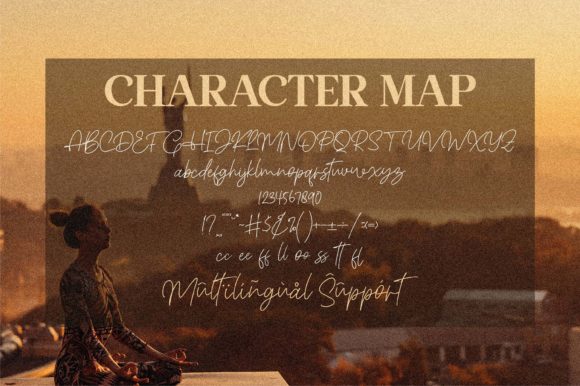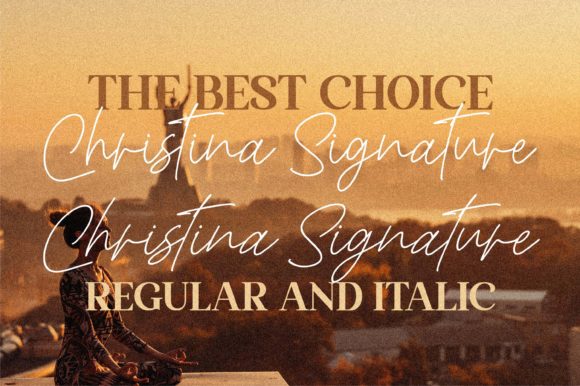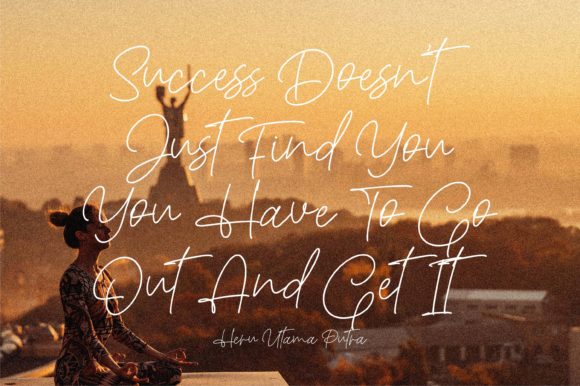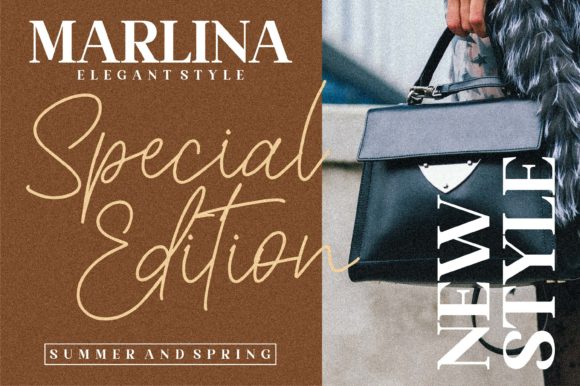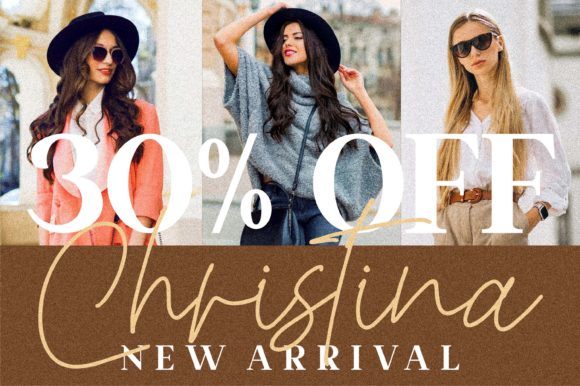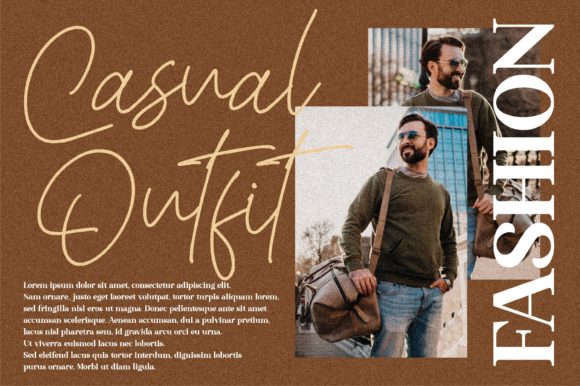
Discover the Elegance of Christina Font: Elevate Your Designs with a Touch of Sophistication
Are you on the hunt for a font that exudes elegance, sophistication, and a dash of modern flair? Look no further than Christina Font, a stunning handwritten typeface that is sure to capture your heart. Designed with meticulous attention to detail, Christina seamlessly blends classic calligraphic influences with a contemporary twist, making it the perfect addition to your design arsenal.
The Essence of Christina Font
Christina Font is an exquisite handwritten font that has been masterfully crafted to become a true favorite among designers and crafters alike. Its classy calligraphic roots are evident in its fluid strokes and elegant letterforms, yet it feels refreshingly modern and versatile. This unique combination of traditional and contemporary elements makes Christina an ideal choice for a wide range of design projects, from wedding invitations and branding materials to digital content and craft projects.
What Makes Christina Font Stand Out?
- Classy Calligraphic Influences: Christina’s design is deeply rooted in traditional calligraphy, giving it a sophisticated and luxurious feel that is perfect for high-end branding and elegant stationery.
- Contemporary and Fresh: Despite its classic influences, Christina has a distinctly modern edge that makes it suitable for a variety of contemporary design projects, from fashion and beauty branding to lifestyle blogs and social media graphics.
- Versatility: Whether you’re working on a digital project or a print-based design, Christina Font adapts beautifully, ensuring that your work always looks polished and professional.
- Ease of Use: Christina Font is designed to be user-friendly, making it easy to incorporate into your projects, regardless of your design experience level.
How to Use Christina Font in Your Projects
Integrating Christina Font into your designs is a straightforward process that can elevate your work to new heights. Here are a few ideas to get you started:
- Wedding and Event Planning: Use Christina Font for wedding invitations, save-the-date cards, and event branding to add a touch of elegance and romance.
- Branding and Logo Design: Christina’s sophisticated look makes it an excellent choice for logos, especially for brands in the luxury, fashion, and beauty sectors.
- Digital Content: Enhance your blog posts, social media graphics, and website content with Christina Font, adding a dash of personality and style to your digital presence.
- Crafting and DIY Projects: If you’re a crafter or enjoy DIY projects, Christina Font can add a professional and personalized touch to your handmade goods, such as labels, packaging, and instructional materials.
Tips for Maximizing the Impact of Christina Font
To get the most out of Christina Font, consider the following tips:
- Pair with Complementary Fonts: Combine Christina Font with clean, sans-serif fonts for a striking contrast that highlights its elegant features.
- Adjust Size and Color: Experiment with different sizes and colors to ensure Christina Font complements your design without overpowering it.
- Use in Headlines and Titles: Take advantage of Christina’s eye-catching appearance by using it for headlines, titles, and key messages in your designs.
Christina Font is more than just a typeface; it’s a design statement that can elevate your projects to the highest levels of sophistication and style. With its exquisite handwritten design, classy calligraphic influences, and contemporary freshness, Christina is poised to become your go-to font for a wide array of design needs. Whether you’re a professional designer or a crafting enthusiast, Christina Font invites you to fall in love with its elegance and versatility. So why wait? Discover the transformative power of Christina Font today and bring your designs to life with a touch of class and sophistication.